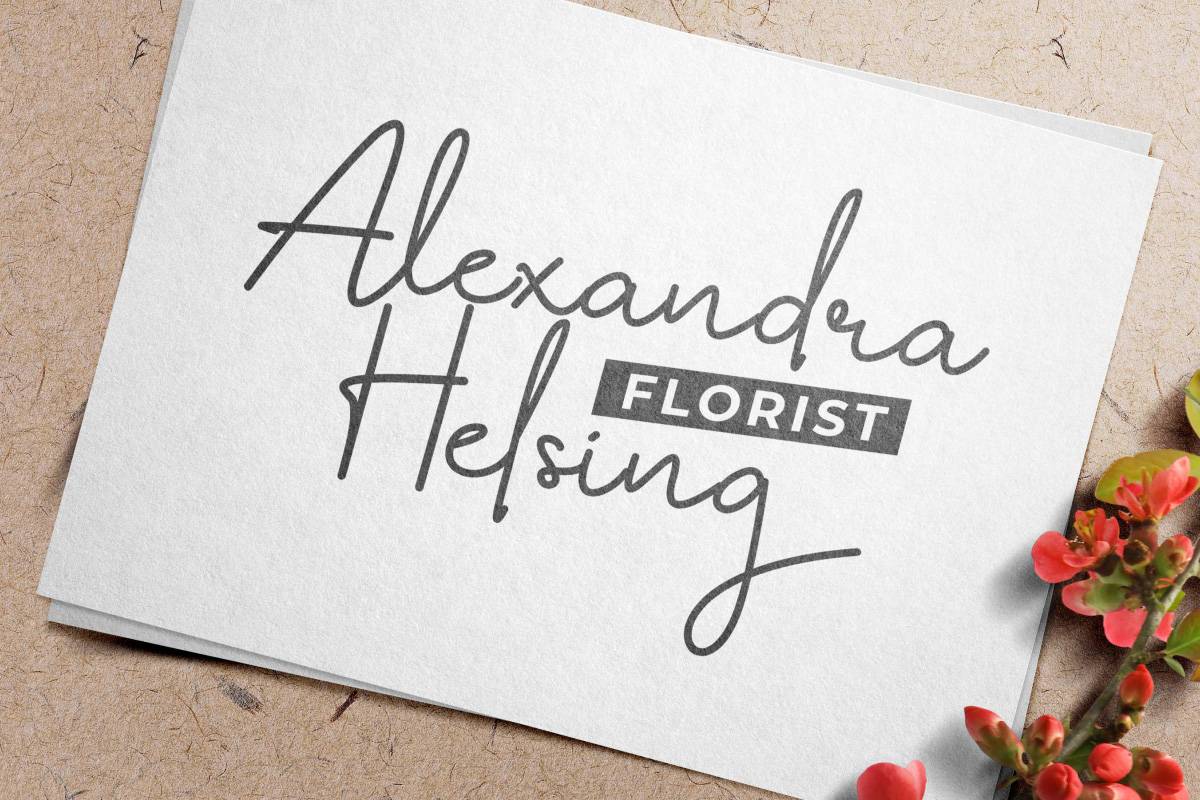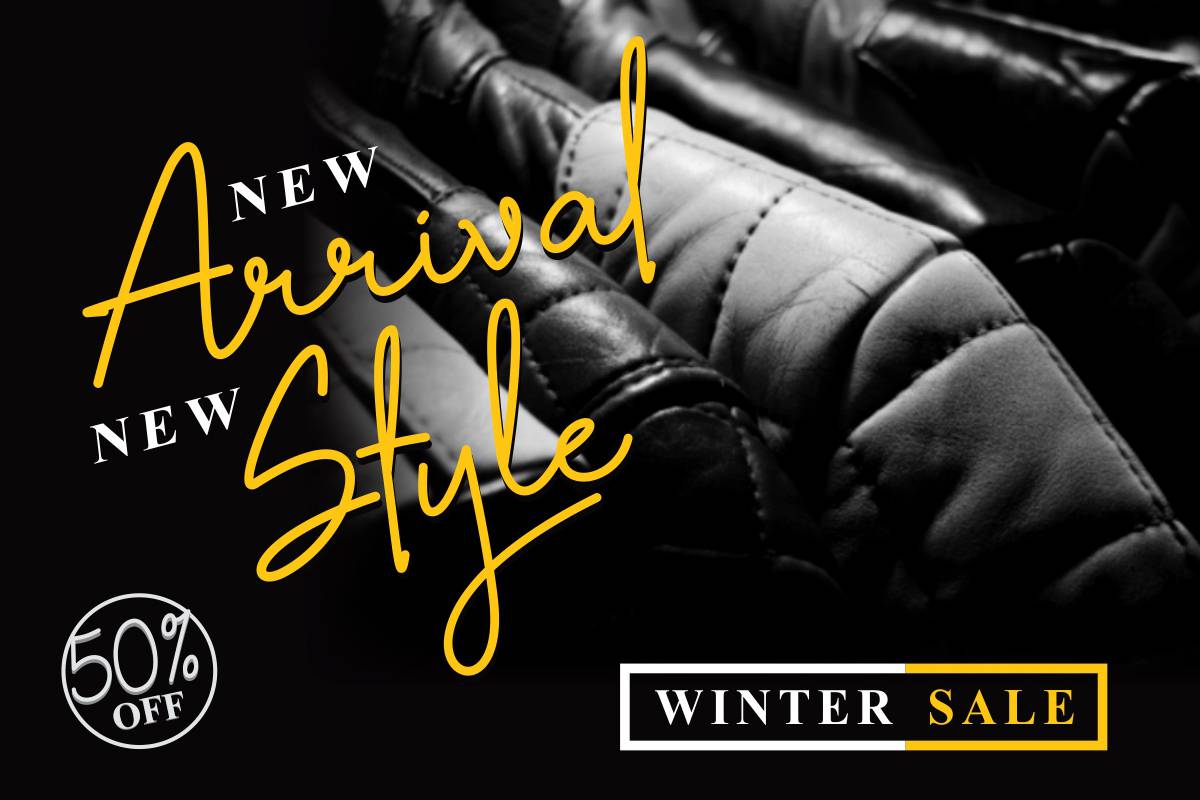
Smart Jack is a delicate and elegant script font featuring tall, graceful letterforms with a handwritten, calligraphic style. Its thin strokes and smooth curves give it a refined, airy feel, making it ideal for invitations, branding, and creative projects that seek a modern yet personal touch. This font works best in decorative uses where sophistication and a sense of individual flair are desired.
Smart Jack Font
About Smart Jack Font